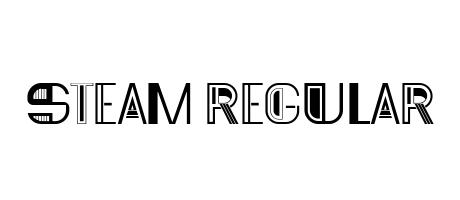
Steam
Steam Regular: A bold, geometric sans-serif font with a distinct industrial feel. Its letterforms are composed of thick, solid lines punctuated by thinner, parallel strokes, creating a layered, almost mechanical effect. The sharp angles and consistent weight give it a powerful, modern presence. It conveys a sense of strength and precision.
Vladimir Nikolic